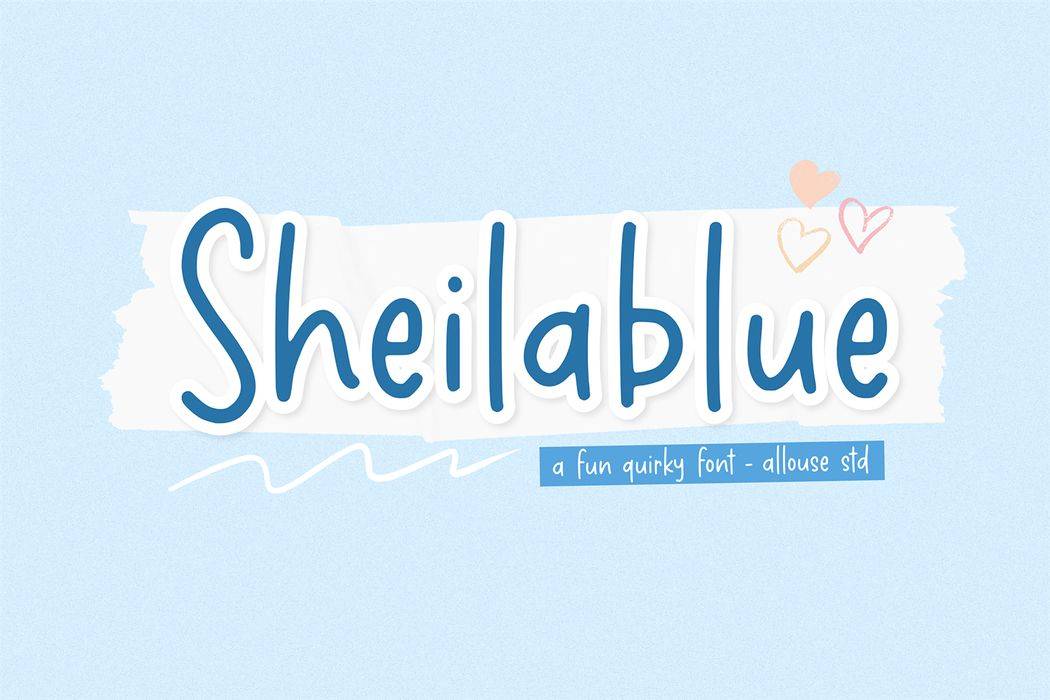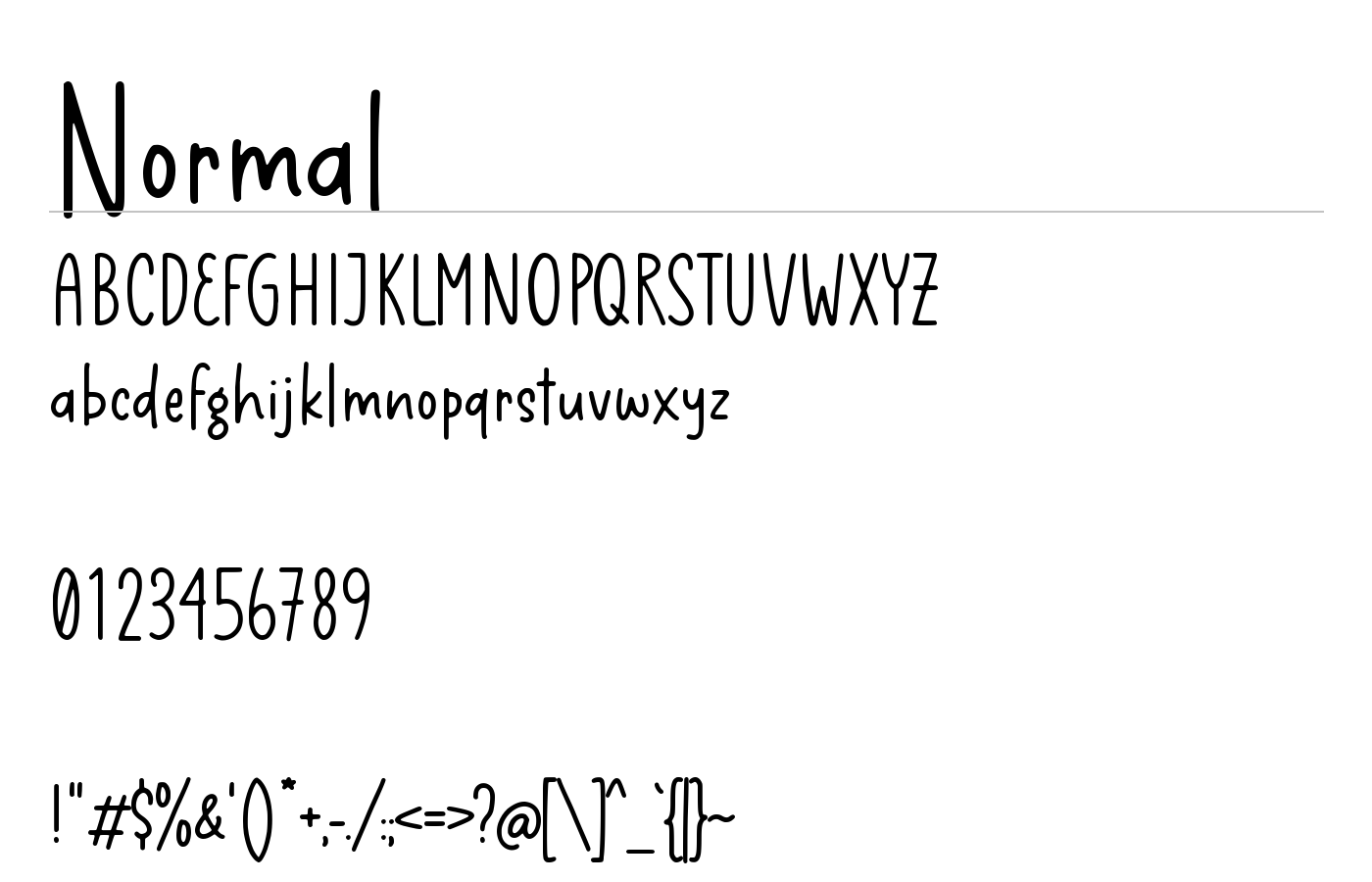
Sheilablue is a playful, narrow sans serif font with a hand-drawn feel, characterized by its tall, slender letterforms and casual, irregular strokes. Its light weight and quirky shapes make it ideal for creative, informal designs such as children's books, personal branding, or fun posters where a friendly, approachable style is desired. This font works best in headlines or short texts where personality and charm are key, adding a whimsical and unique touch to any project.
Sheilablue Font
About Sheilablue Font